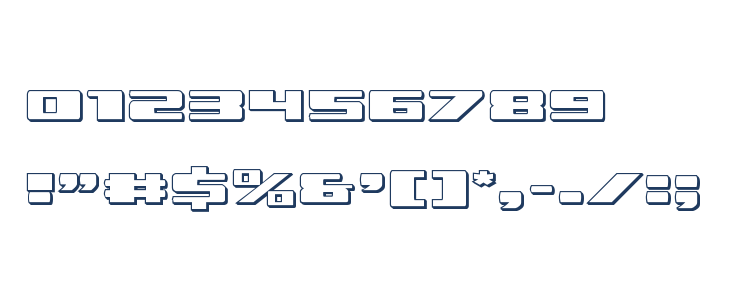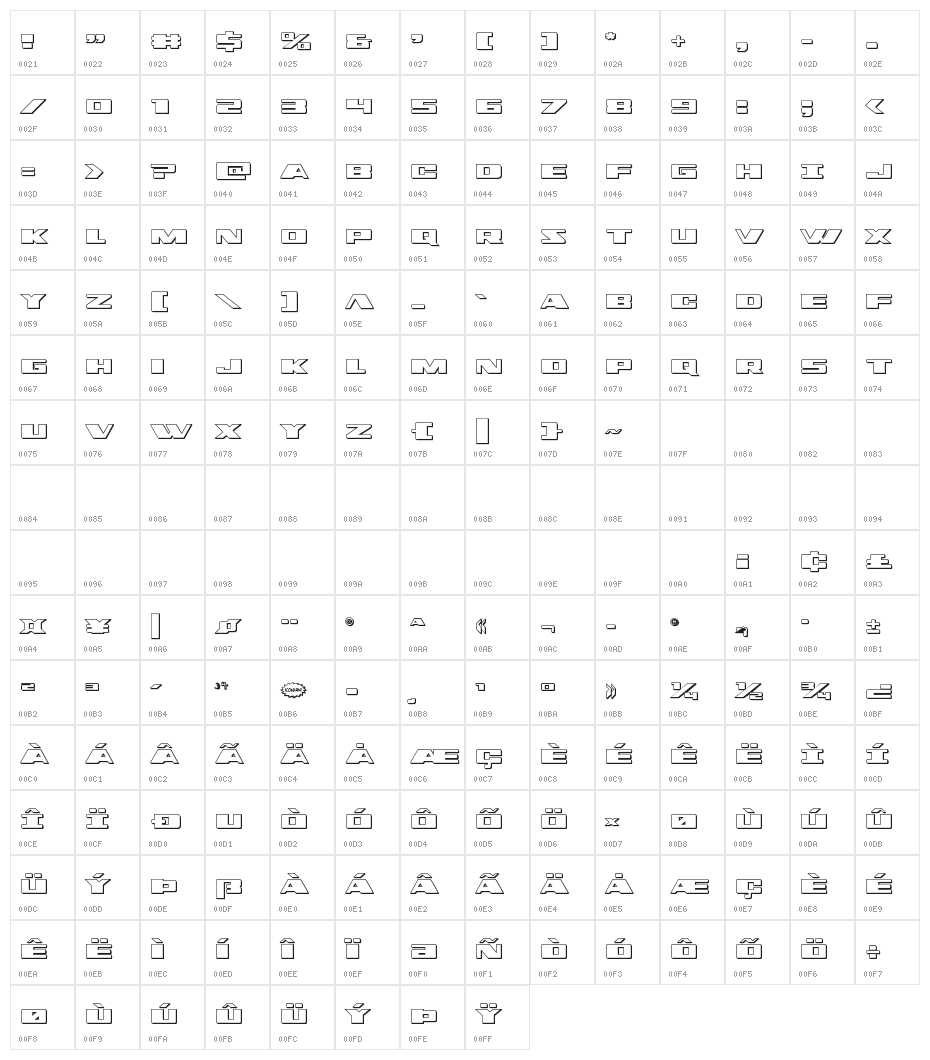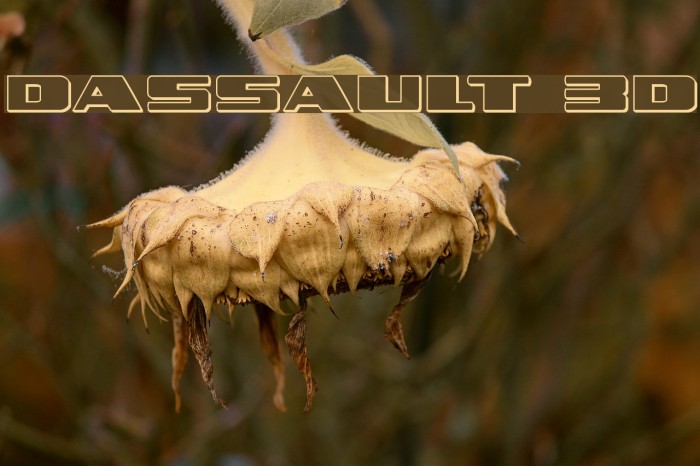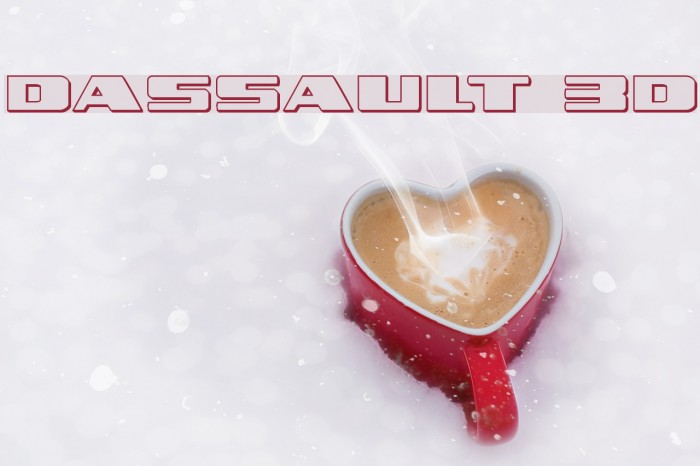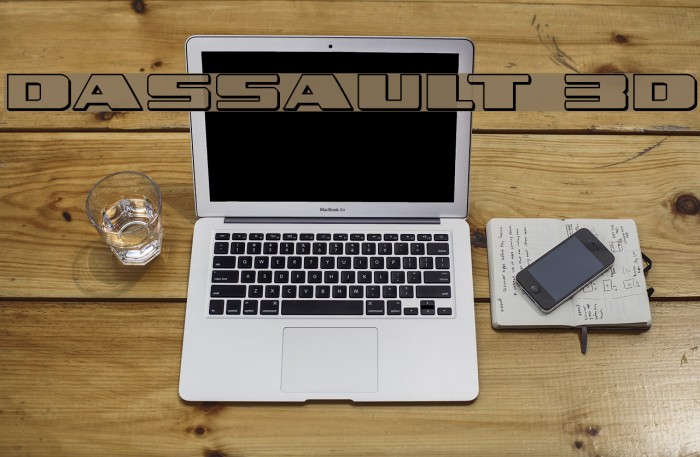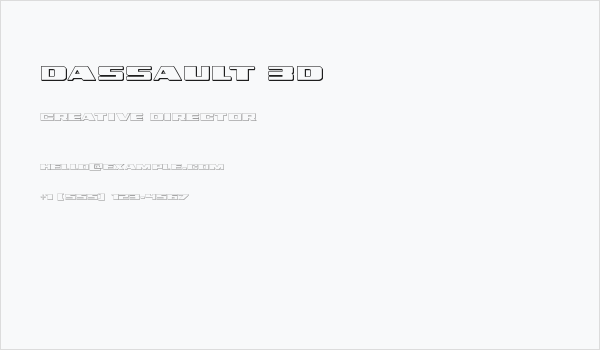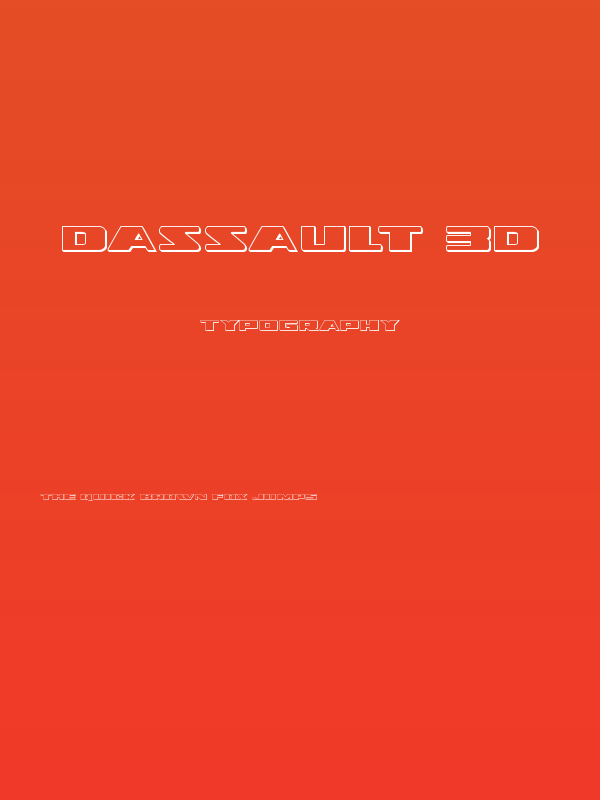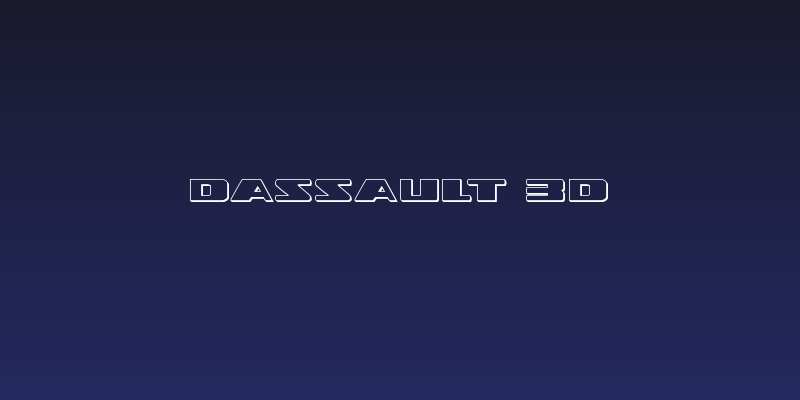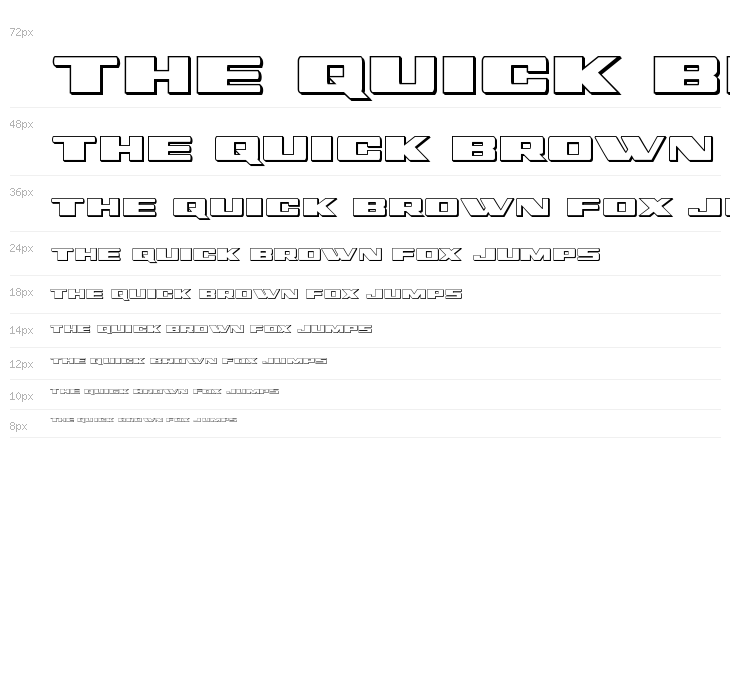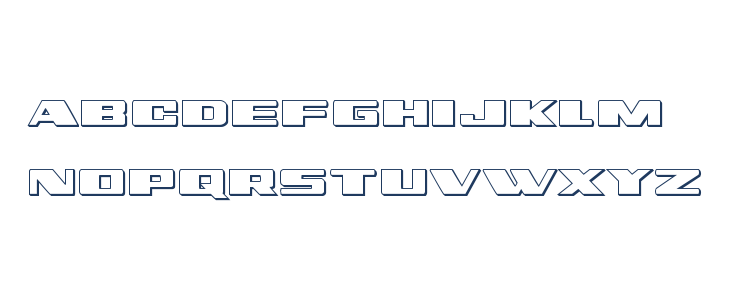
Dassault 3D Font
Dassault 3D Description
This font features a bold, geometric design with a three-dimensional effect that gives it a futuristic and dynamic appearance. The characters are outlined with a thick border, enhancing their visibility and impact. The angular and blocky shapes of the letters convey a sense of strength and modernity, making it suitable for projects that require a bold statement. The numbers and special characters maintain the same stylistic elements, ensuring consistency across all text elements. This font is ideal for use in digital and print media where a strong visual presence is needed.
| Proposed Projects | Perfect for branding, posters, video game titles, and technology-themed designs. |